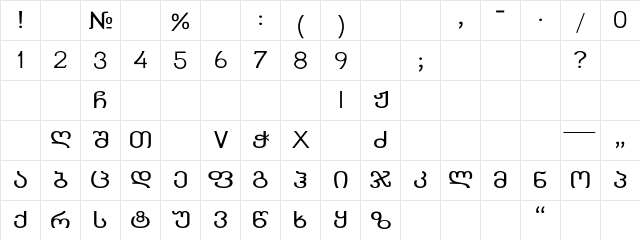
GEO-Kolkhetmtav Regular
Design Context for GEO-Kolkhetmtav Typeface
GEO-Kolkhetmtav takes a measured approach to typography — its balanced proportions and neutral character make it a reliable workhorse for both digital and print work.